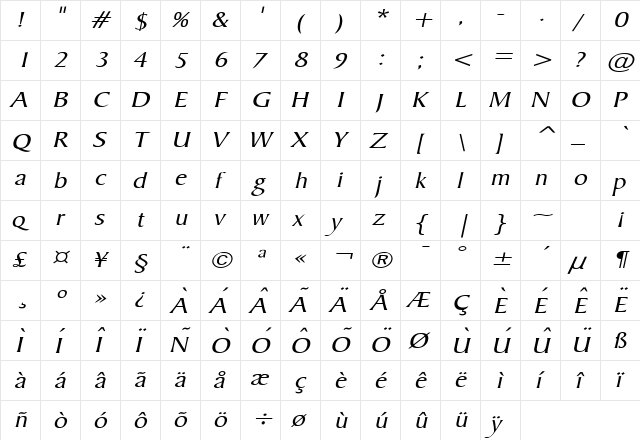
Barrett Wide Italic
Design Context for Barrett Wide Typeface
Barrett Wide takes a measured approach to typography — its balanced proportions and neutral character make it a reliable workhorse for both digital and print work. Its italic angle brings a sense of urgency and motion to the letterforms.
Pro Tip: Try Barrett Wide for annotation and caption copy alongside an upright companion — the contrast in angle creates a dynamic but ordered typographic system.